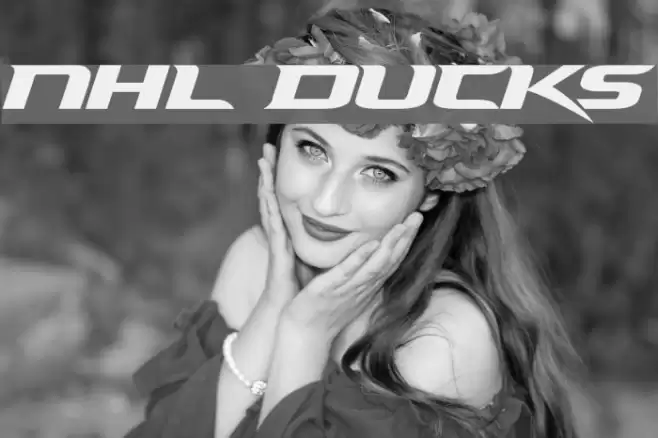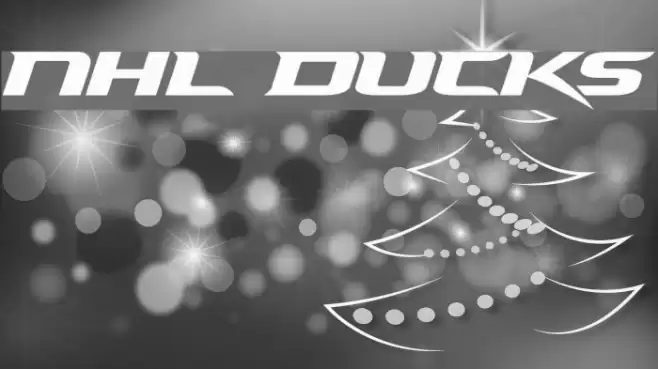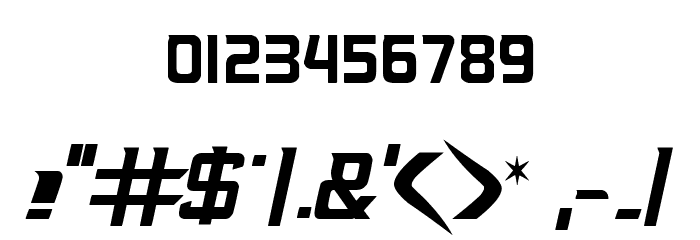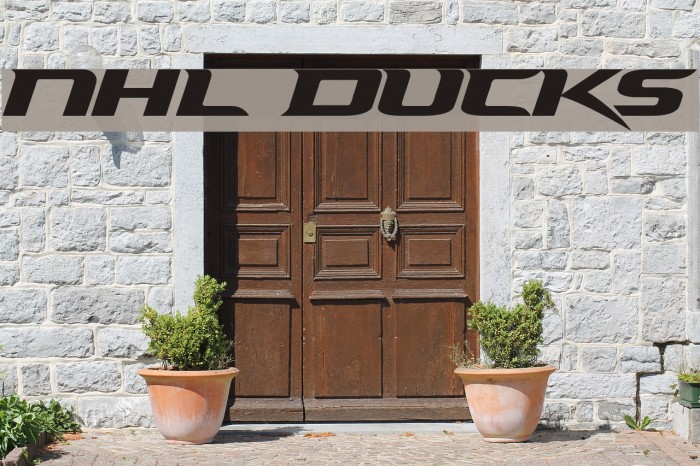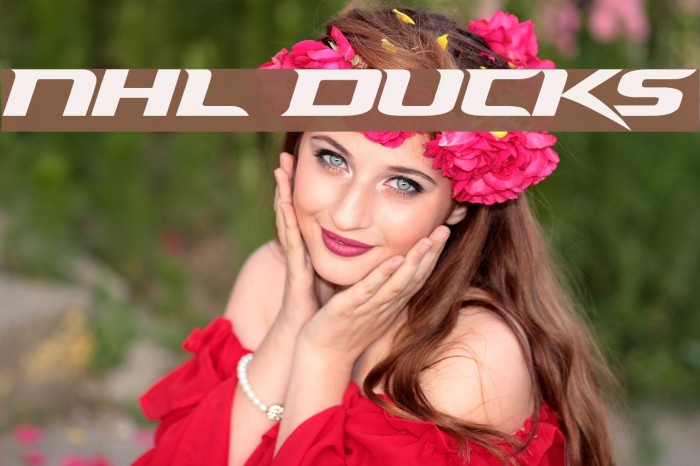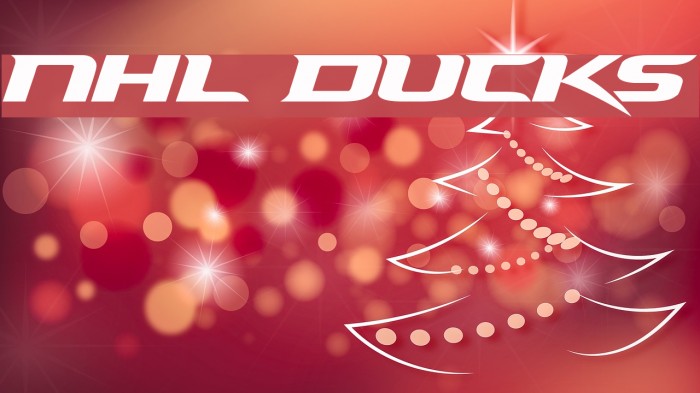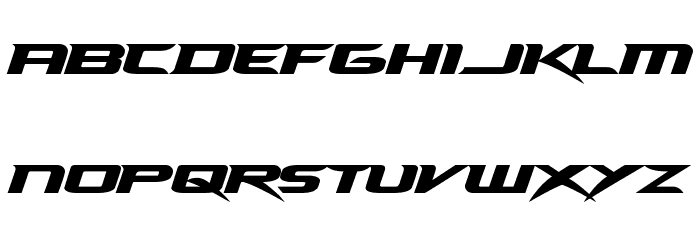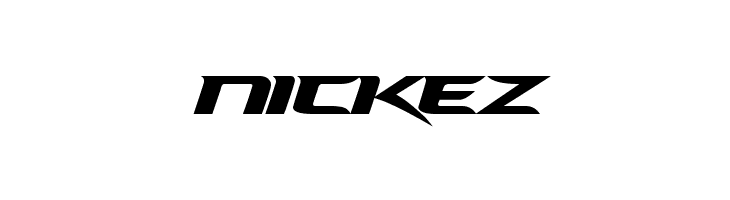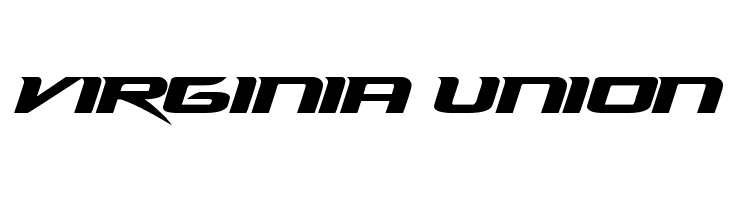
NHL Ducks Font
NHL Ducks Description
This font features a bold and dynamic design with sharp, angular edges and a distinct, sporty aesthetic. The characters are slightly italicized, giving a sense of motion and energy. The uppercase and lowercase letters maintain a consistent style, with unique cuts and slashes that add to the aggressive and modern feel. The numbers and special characters are equally bold, ensuring uniformity across all text. This font is ideal for projects that require a strong, impactful presence.
A bold, angular font with a sporty, dynamic style from Uncategorized fonts.
- Proposed Projects: Perfect for sports team branding, dynamic posters, and energetic logo designs.
- Use Case: Logos, Headlines